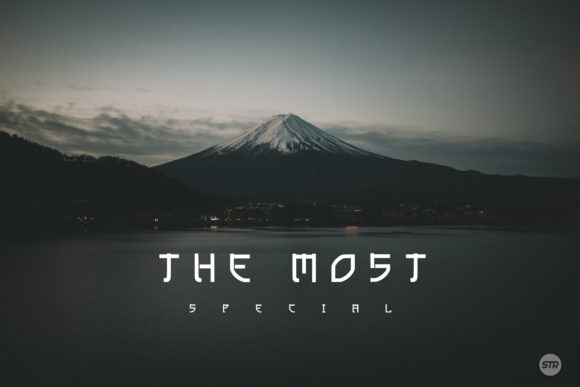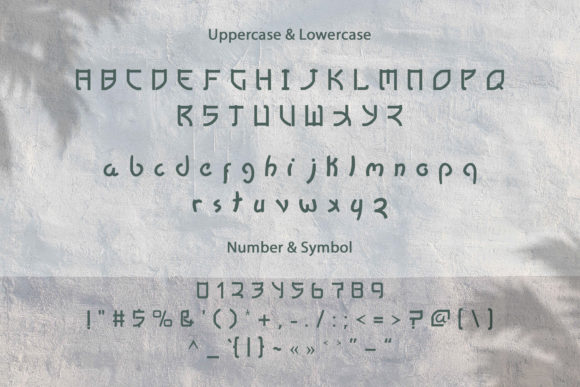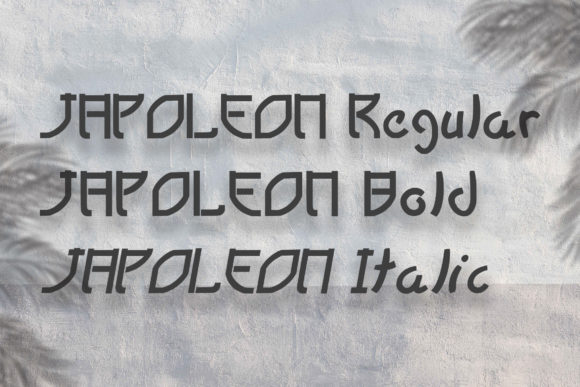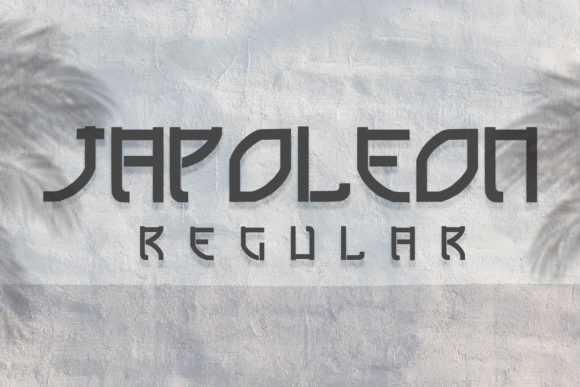
Introduction to Japoleon Font
Have you ever stared at a blank canvas, waiting for that spark of creativity to ignite your next project? For designers, moments like these are what drive us to experiment, to push boundaries, and to explore new possibilities. It’s in these moments that we discover the perfect design resource to elevate our work – and that’s exactly what Japoleon Font offers.
Imagine a font that seamlessly blends traditional Japanese aesthetics with modern flair, creating a unique visual experience that’s sure to captivate your audience. Japoleon Font is that game-changing asset, perfect for designers looking to add an extra layer of sophistication to their creative projects. Whether you’re crafting a stunning food menu, designing a eye-catching poster, or creating a flyer that demands attention, Japoleon Font is the perfect choice.
Key Features of Japoleon Font
- High-quality, unique design for creative projects, making it a valuable design resource.
- Transparent background, allowing for seamless integration with any design.
- Comes in a single weight, making it easy to use and customize for various design needs.
- Supports Latin, Cyrillic, and Greek languages, making it a versatile font for international designs.
- Designed to be scalable, maintaining its quality and clarity at various resolutions and sizes.
- Perfect for digital and print projects, including logos, branding, and typography-based designs.
Honest Review: Japoleon Font
As a designer, I’m always on the lookout for high-quality design resources to enhance my creative projects. Recently, I stumbled upon the Japoleon Font, and I’m excited to share my honest review with you.
What works well: ✨ The Japoleon Font is incredibly versatile, with a range of styles and weights that can be used for various design applications. It’s also free to download, making it a valuable asset for designers on a budget. The font’s sleek and modern design is perfect for creating a professional and sophisticated look.
Limitations: ⚠️ While the Japoleon Font is a great resource, it does have some limitations. The transparent background option can be a bit tricky to work with, and the font may not be suitable for all design projects. Additionally, some users have reported issues with font rendering on certain devices.
Common Use Cases for Japoleon Font
Japoleon Font is perfect for creating social media graphics, blog posts, and marketing materials. Its unique design makes it stand out from other fonts and adds a touch of sophistication to any project.